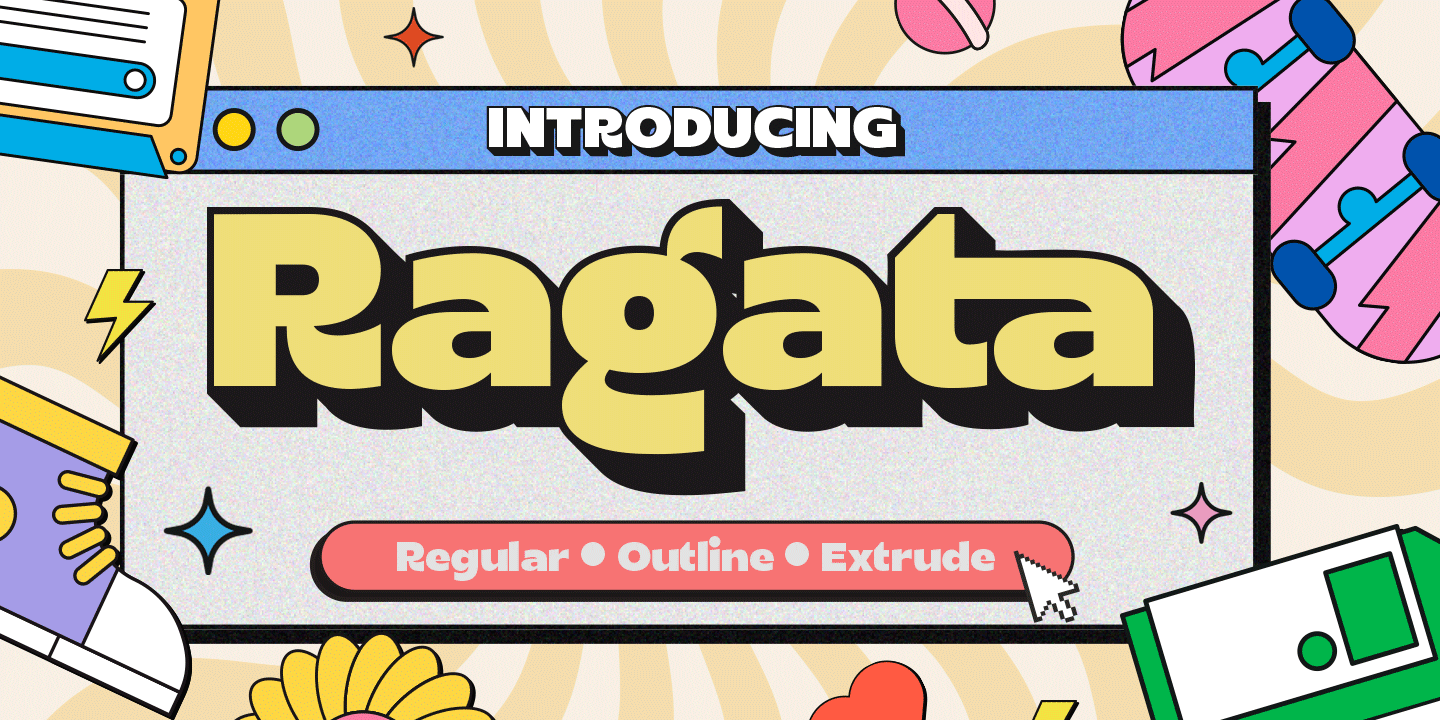
Ragata Font is perfect for contemporary magazine layouts, modern fashion branding, art gallery exhibitions, architectural portfolios, luxury product catalogs, creative agency websites, editorial headlines, corporate presentations, lifestyle brand identity, high-end restaurant menus, and any project that requires sophisticated, clean typography with artistic flair.
What makes Ragata Font exciting is its perfect balance between geometric precision and artistic expression. This refined typeface features distinctive letterforms with subtle angular details and carefully crafted curves that create a sense of modern elegance and creative sophistication. The font's unique character proportions and harmonious spacing make it an ideal choice for brands seeking to convey innovation, quality, and contemporary style while maintaining exceptional readability across all applications.
Ragata Font family includes comprehensive weight variations and stylistic alternatives, offering designers complete typographic flexibility for complex design systems. The font family typically features multiple weights from light to bold, along with matching italics and extended character sets that support international languages and provide versatility for global brand communications.
Whether you're developing brand identities for creative industries, designing editorial publications, or creating digital experiences, Ragata Font Free Download provides the contemporary aesthetic and professional quality that modern design projects demand. Its versatile nature makes it suitable for both headline applications and body text, ensuring consistent visual harmony across all design elements.
The font's distinctive personality and excellent legibility make it a valuable asset for any designer's collection. With Ragata Font, your projects will communicate sophistication, creativity, and forward-thinking vision that captivates contemporary audiences.